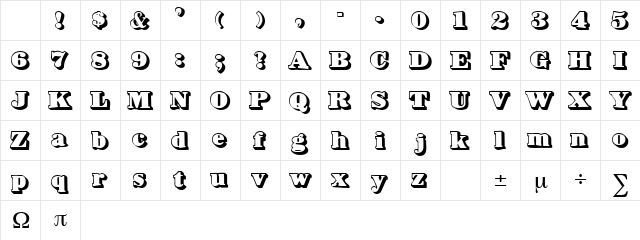
BowersShadow is built around its visual character rather than neutral utility - its distinctive forms are designed to make an impression at display sizes.
Font Pairing: Pair with a clean neutral sans-serif for body copy to let BowersShadow's character lead without overwhelming the composition.
Pro Tip: Use BowersShadow exclusively at display sizes - it was designed to be seen, not read at length. Let a neutral companion handle body copy.